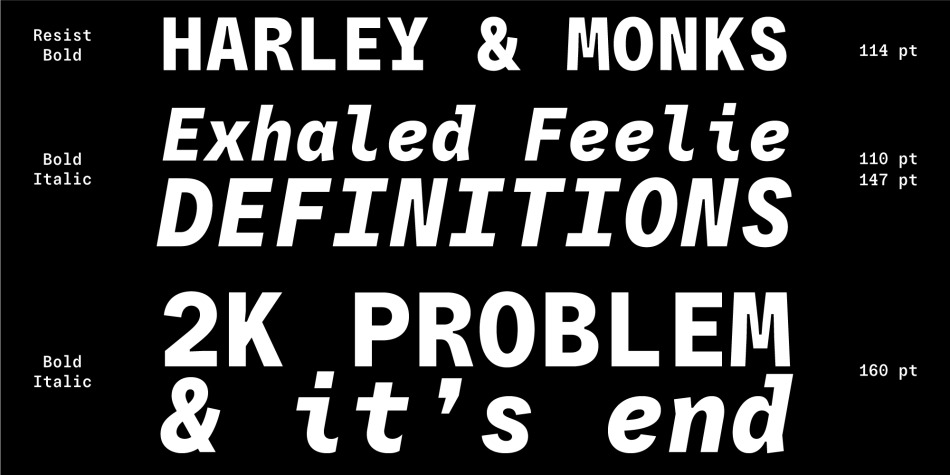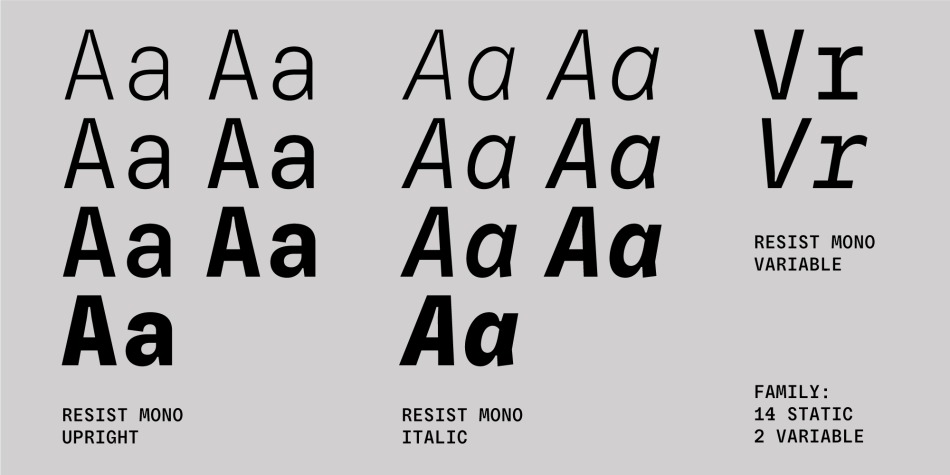
Resist Mono Font Family
Resist Mono Font Family is a highly functional monospaced type family designed for optimal performance both in print and on the web. Inspired by the distinctive features of the original Resist Sans family, it showcases deep inktraps, angled terminals, and exceptional legibility. With its bold personality and style, Resist Mono remains highly readable even at small sizes. Suitable for coding, UX, web, and graphic design, Resist Mono offers versatility and visual impact for a wide range of applications.
Resist Mono comes in 16 styles (14 static fonts) and two variable fonts. Each font contains over 1300 glyphs, including letters, small capitals, numbers, punctuation, symbols, etc. Resist Mono supports more than 200 Latin-based languages and has extensive Cyrillic support for languages like Russian, Bulgarian, Ukrainian, Serbian, and many more. In addition to this, Resist Mono also includes special Powerline symbols for coding. OpenType features in Resist Mono include Small Capitals, Case Sensitive Punctuation, Stylistic Alternates, Fractions, Subscript, Superscript, Ligatures and many more.